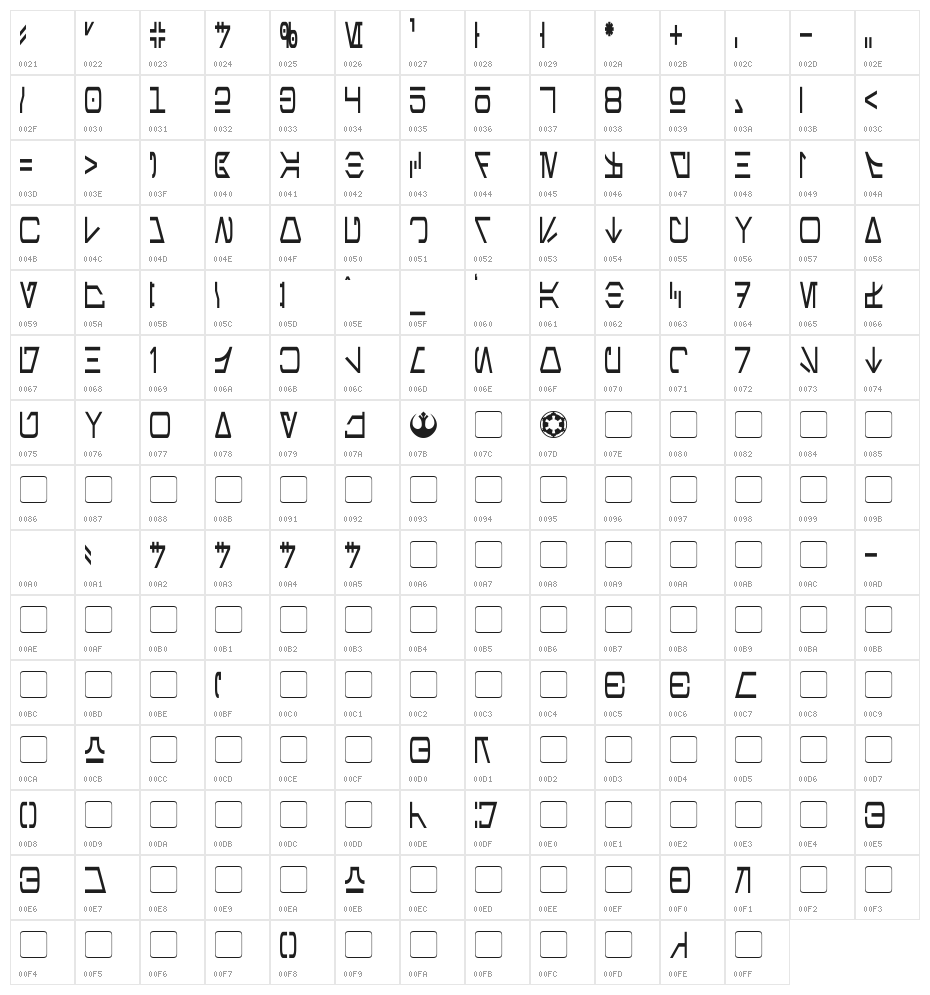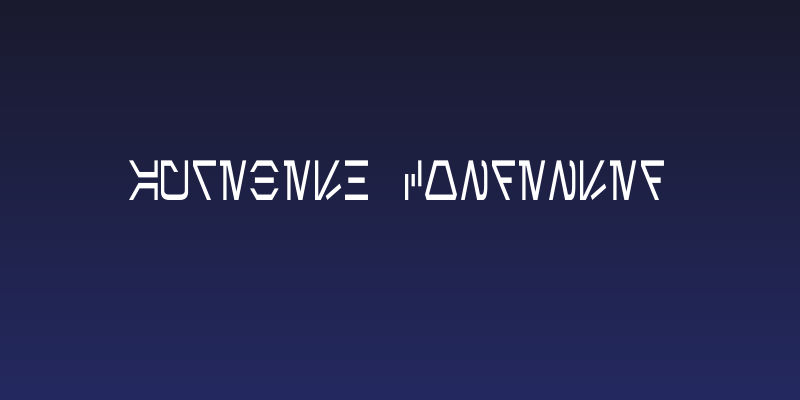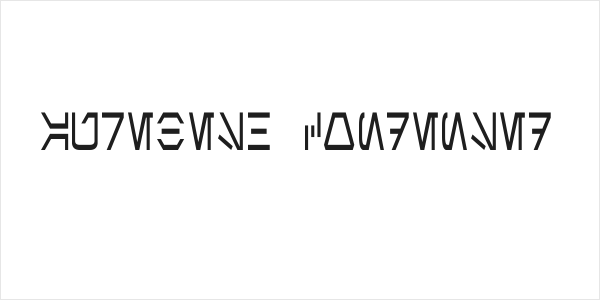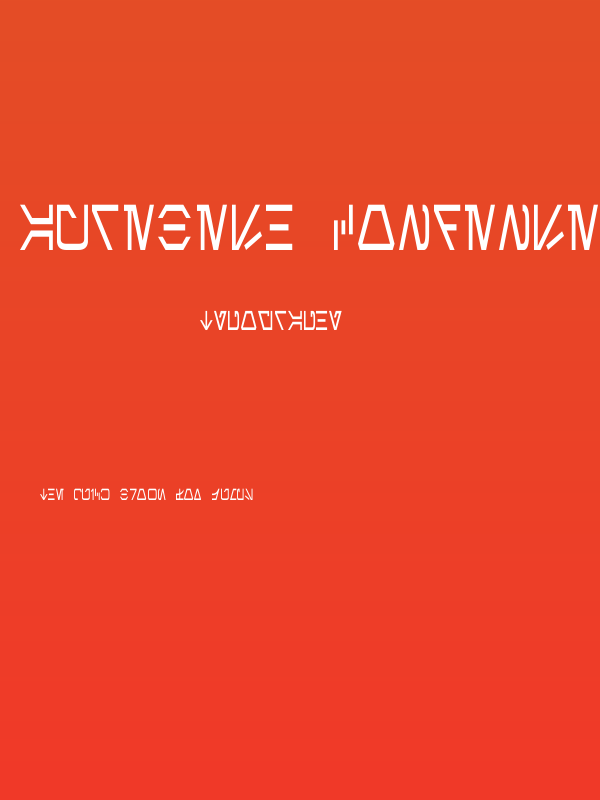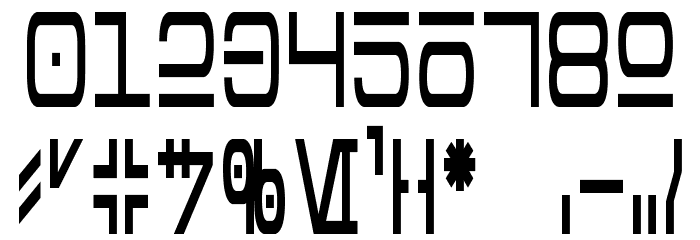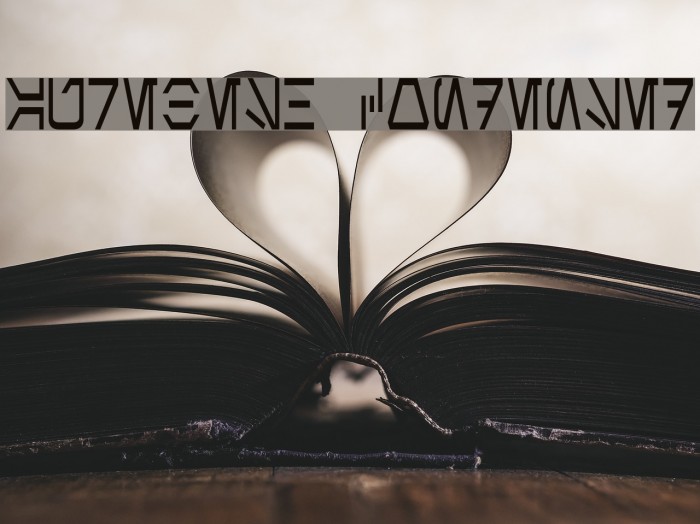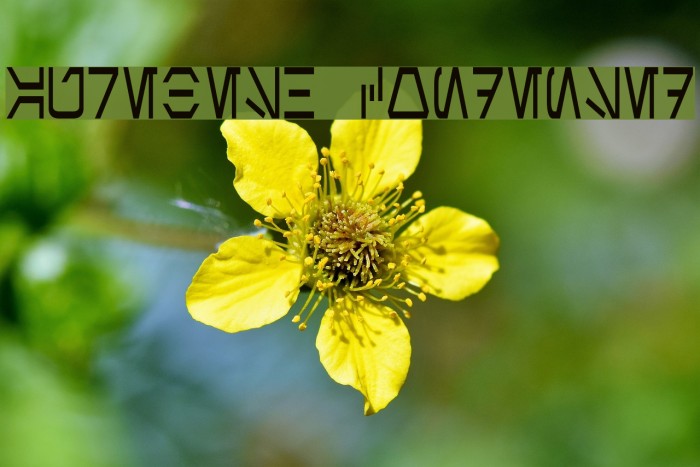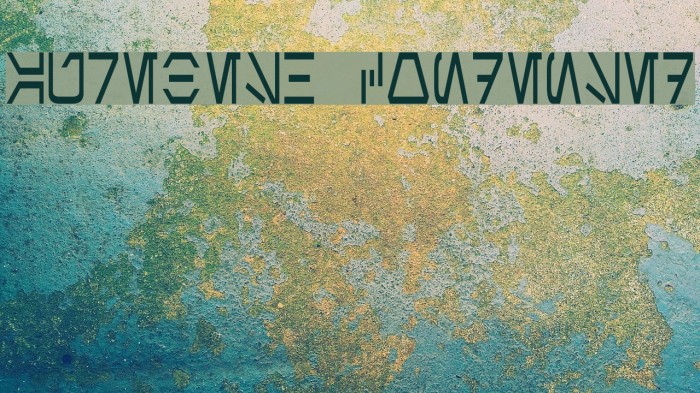
Aurebesh Condensed Font
Aurebesh Condensed Description
This font is a stylized representation of a fictional script, characterized by its geometric and angular shapes. Each character is distinct, with sharp edges and a futuristic aesthetic. The design is reminiscent of alien or sci-fi themes, often used to convey a sense of otherworldliness. The characters are evenly spaced, providing a clean and organized appearance. The font is bold and striking, making it suitable for attention-grabbing headlines or thematic designs. Its unique style makes it stand out, offering a creative alternative to traditional alphabets.
| Use Case | Headlines, Logos, Thematic Designs |
| Proposed Projects | Ideal for sci-fi themed projects, video game interfaces, movie posters, or any creative work requiring a futuristic touch. |